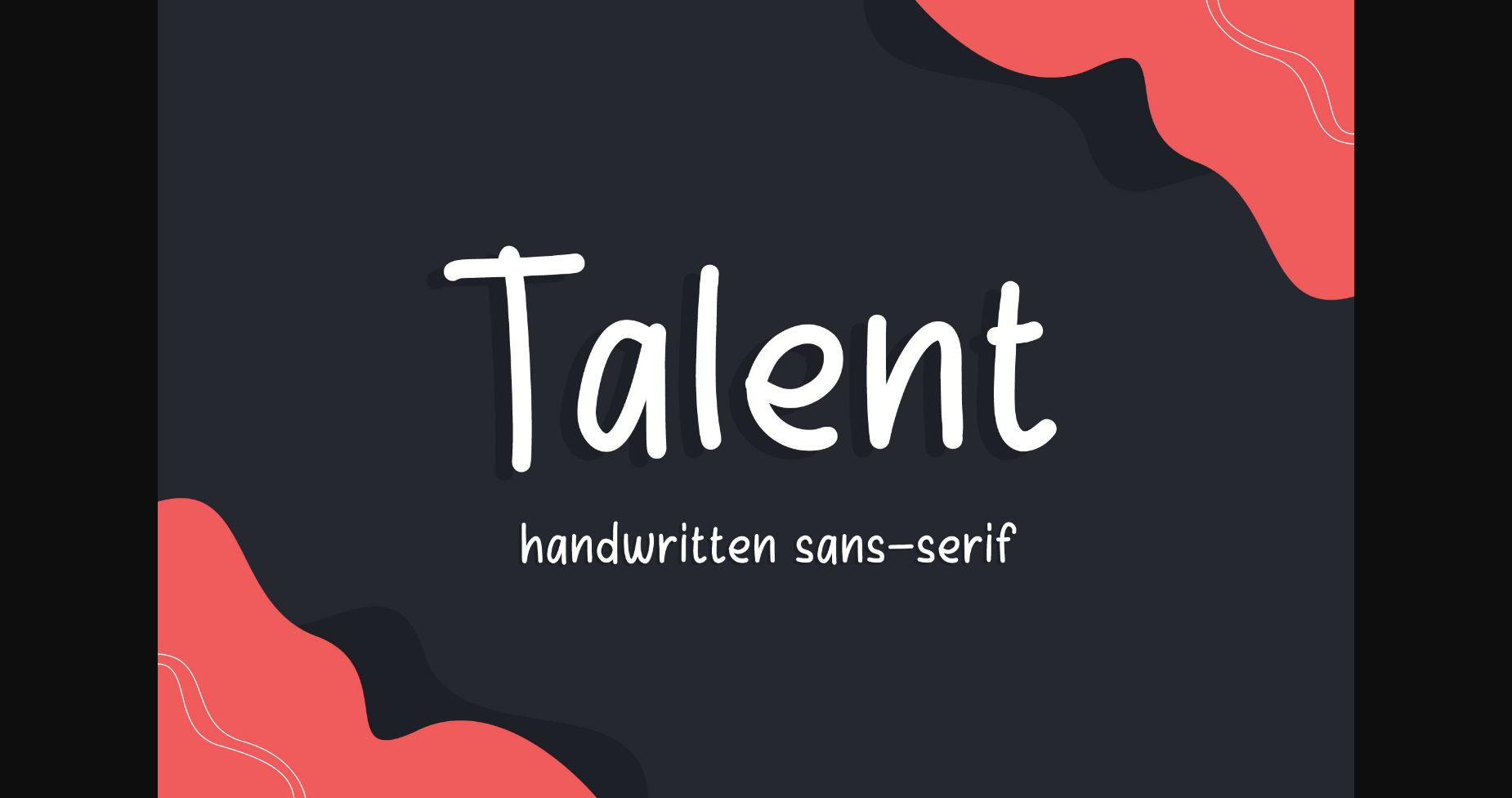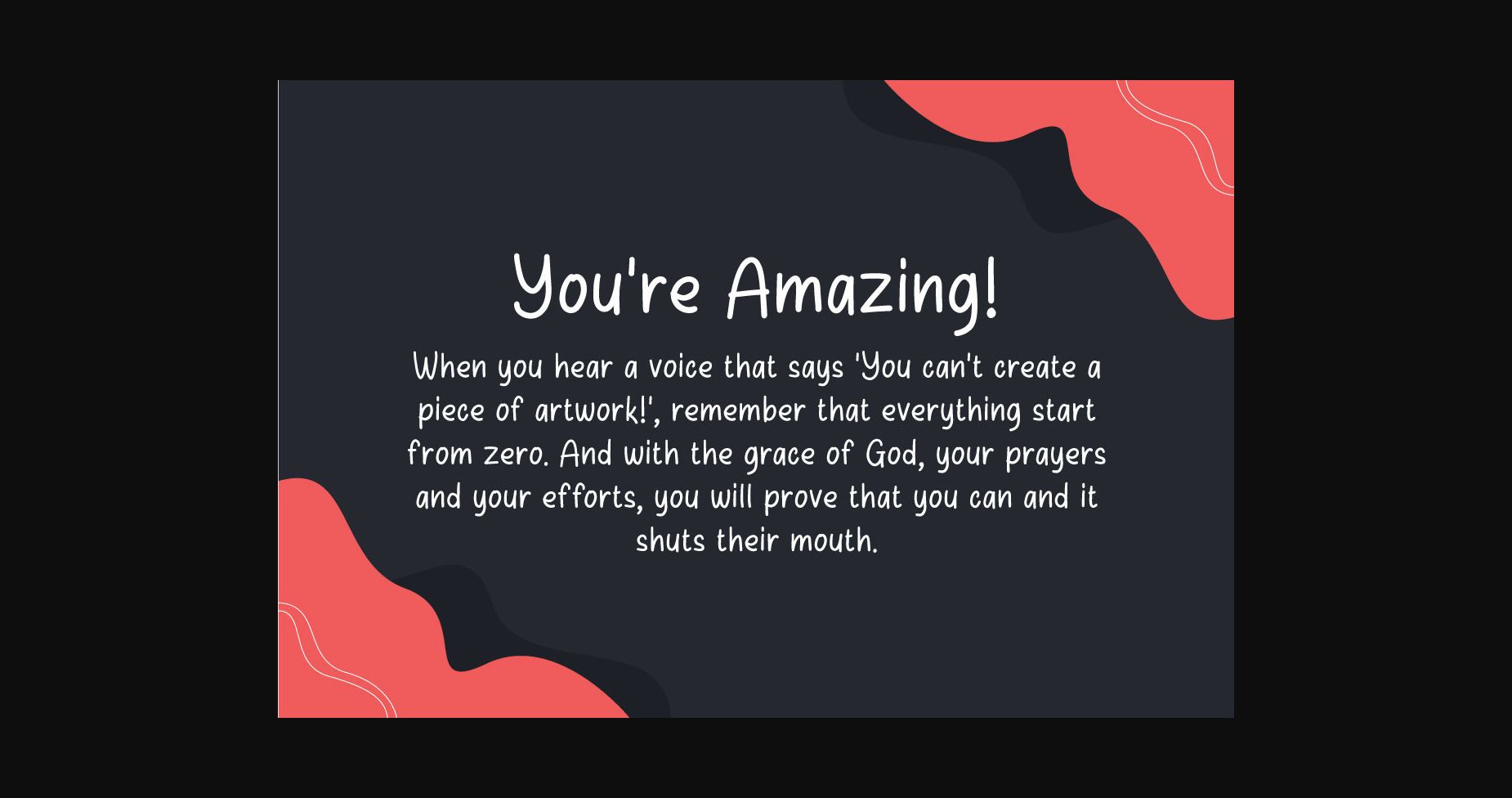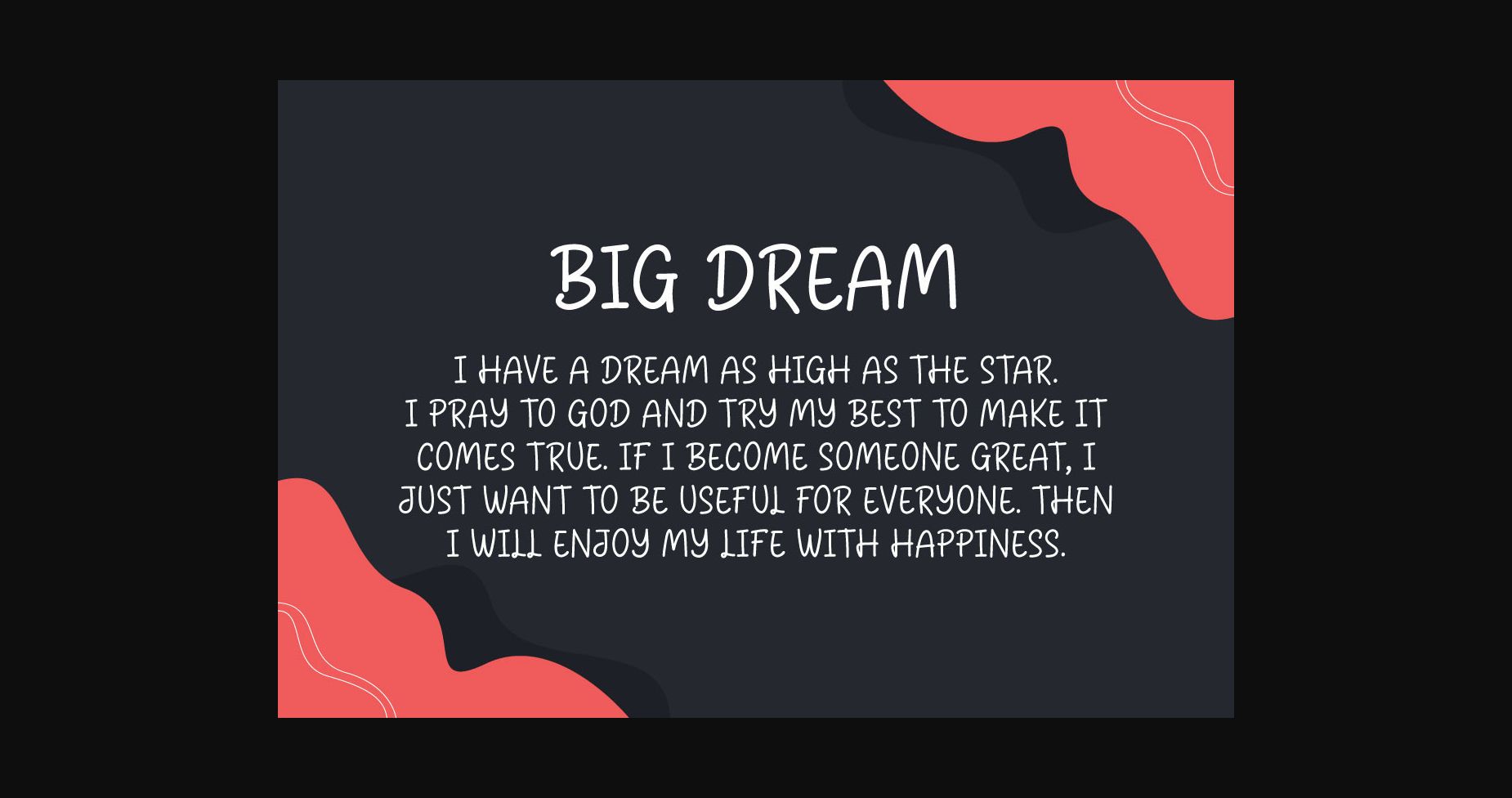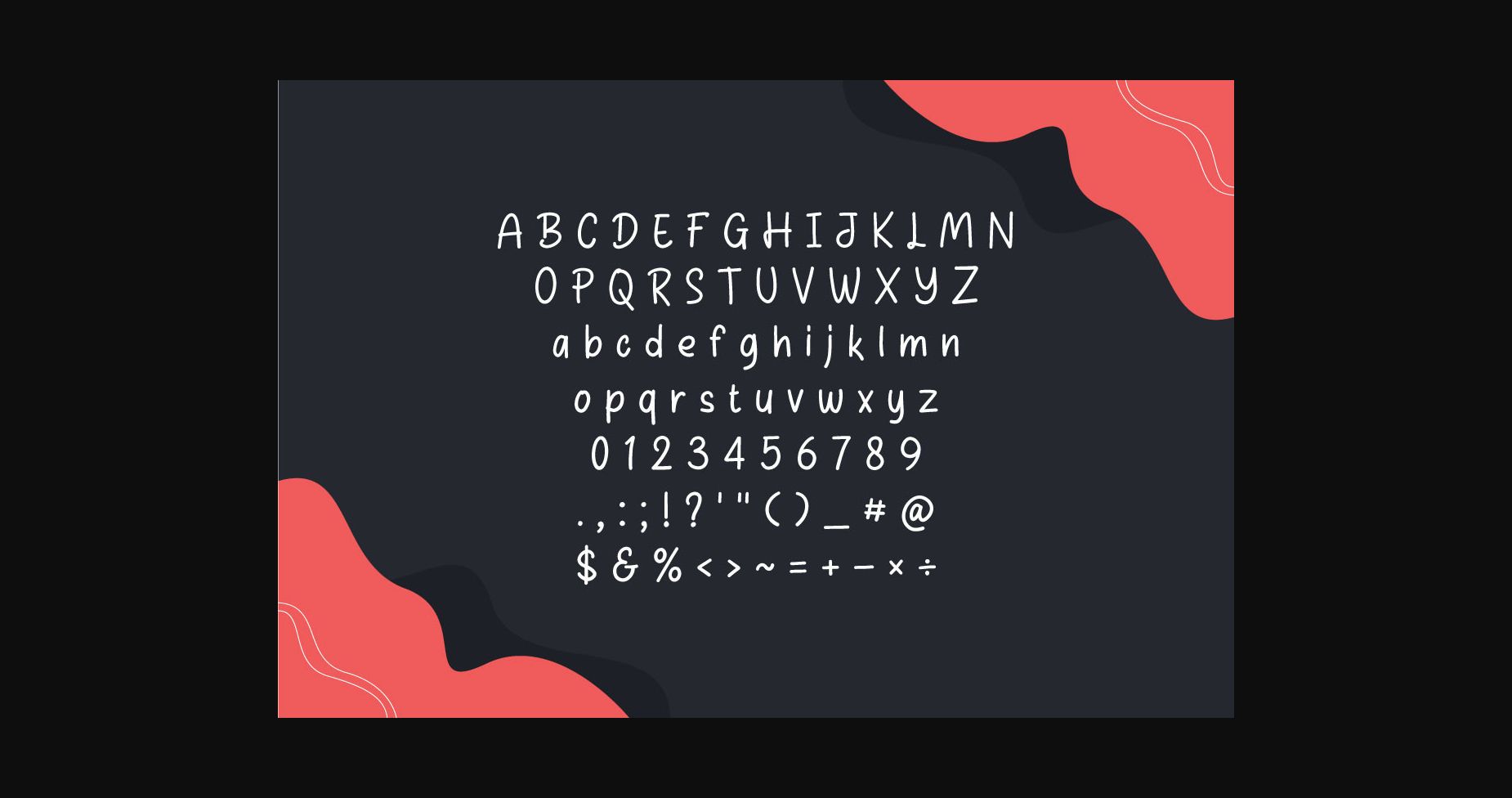
HomeSans Serif FontsTalent Font Sans Serif Fonts Talent Font FacebookXPinterestWhatsApp 1 of 6 ... Talent Font Poster 2... Talent Font Poster 3... Talent Font Poster 4... Talent Font Poster 5... Talent Font Poster 6... About Talent Font Talent is a tall and neat handwritten sans serif font. Trendy and stylish, this font will elevate each of your creations. DOWNLOAD NOW People also explored Attention Font The Winter Font Roppy Easter Font Monthly Font The Singet Font Chewy Bubble Font Easter Sunday Font Sympathi Font Bugan Script Font 462 0 TagsTalentTalent Font Previous articleBasmety FontNext articleMardi Gras Brush Font LEAVE A REPLY Cancel reply Comment: Please enter your comment! Name:* Please enter your name here Email:* You have entered an incorrect email address! Please enter your email address here Website: Save my name, email, and website in this browser for the next time I comment. Personal Use Free Penelope Brush Script Font Personal Use Free Read more about this font Frizton Personal Use Free Read more about this font Cherry Ai Personal Use Free Read more about this font Mike Ferrari 16017 Personal Use Free Read more about this font BLOG How to Install and Use Fonts on Windows, macOS, and Web Projects How to Install and Use Fonts on Windows, macOS, and Web Projects Fonts are a crucial part of design and branding. Whether you’re designing a... Top 7 Google Fonts Alternatives for Faster and Privacy-Friendly Web Design (2025) How to Cut Any Font on Cricut: Convert a Font to SVG (Free) 5 Fonts That Will Dominate Design Trends in 2026